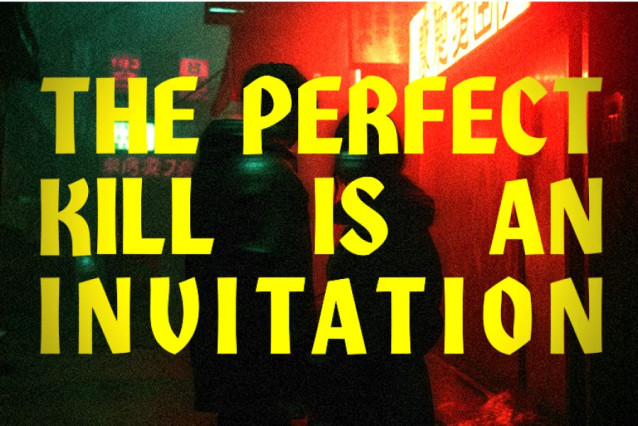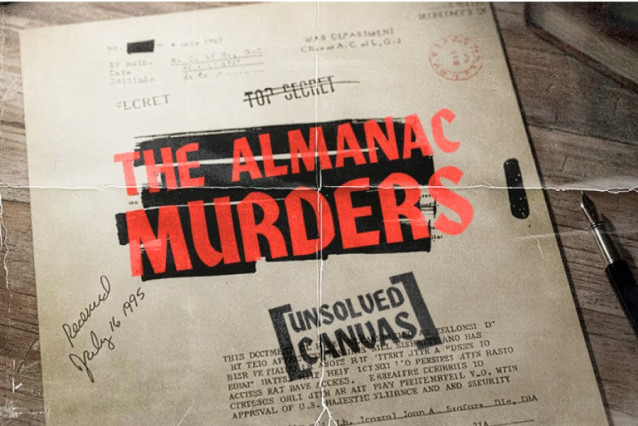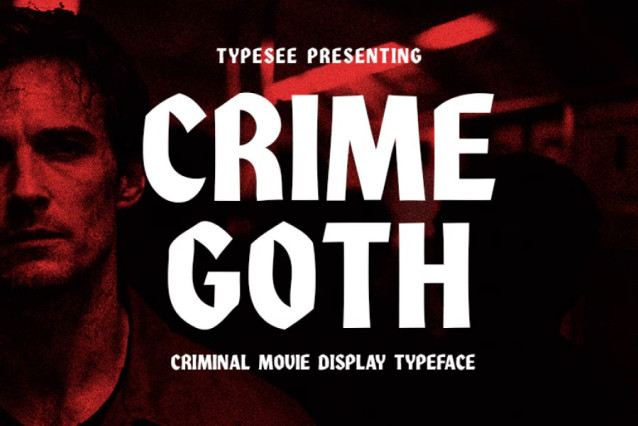
Crime Goth Font is a heavy, dramatic display typeface inspired by classic criminal movie titles and neo-noir aesthetics. It features exaggerated serifs and abrupt angles, creating a sense of instability and intimidating presence. This font is perfect for any project demanding a bold, suspenseful, and intense visual style.
Crime Goth is a unique Criminal Movie Display Typeface that fuses traditional Gothic weight with the harsh, modern edge of neo-noir and crime thrillers. It is characterized by its heavy, dense black fills and dramatically exaggerated serifs.
The letterforms utilize abrupt angles and an irregular, slightly unsteady contour to convey a strong sense of movement and instability. The overall effect is intimidating and suspenseful, making it ideal for creating powerful headlines.